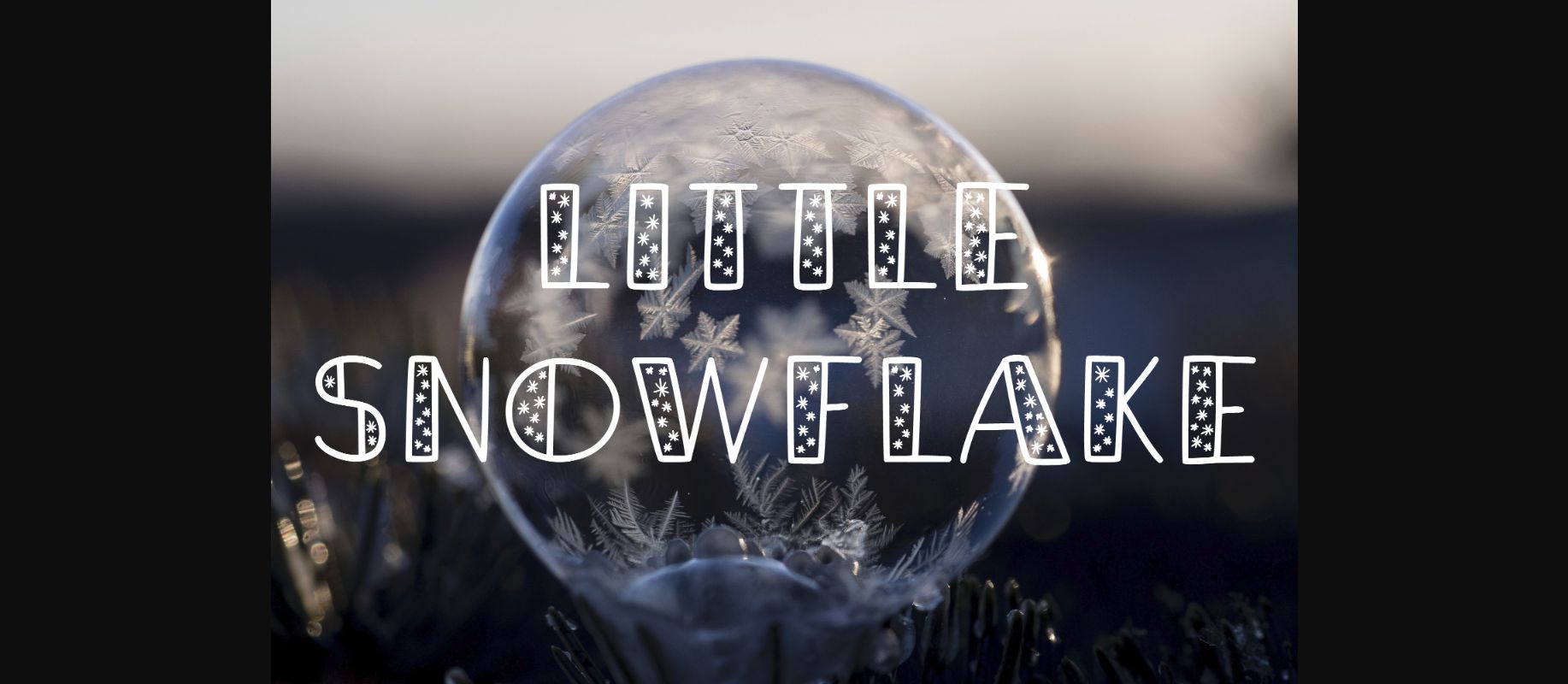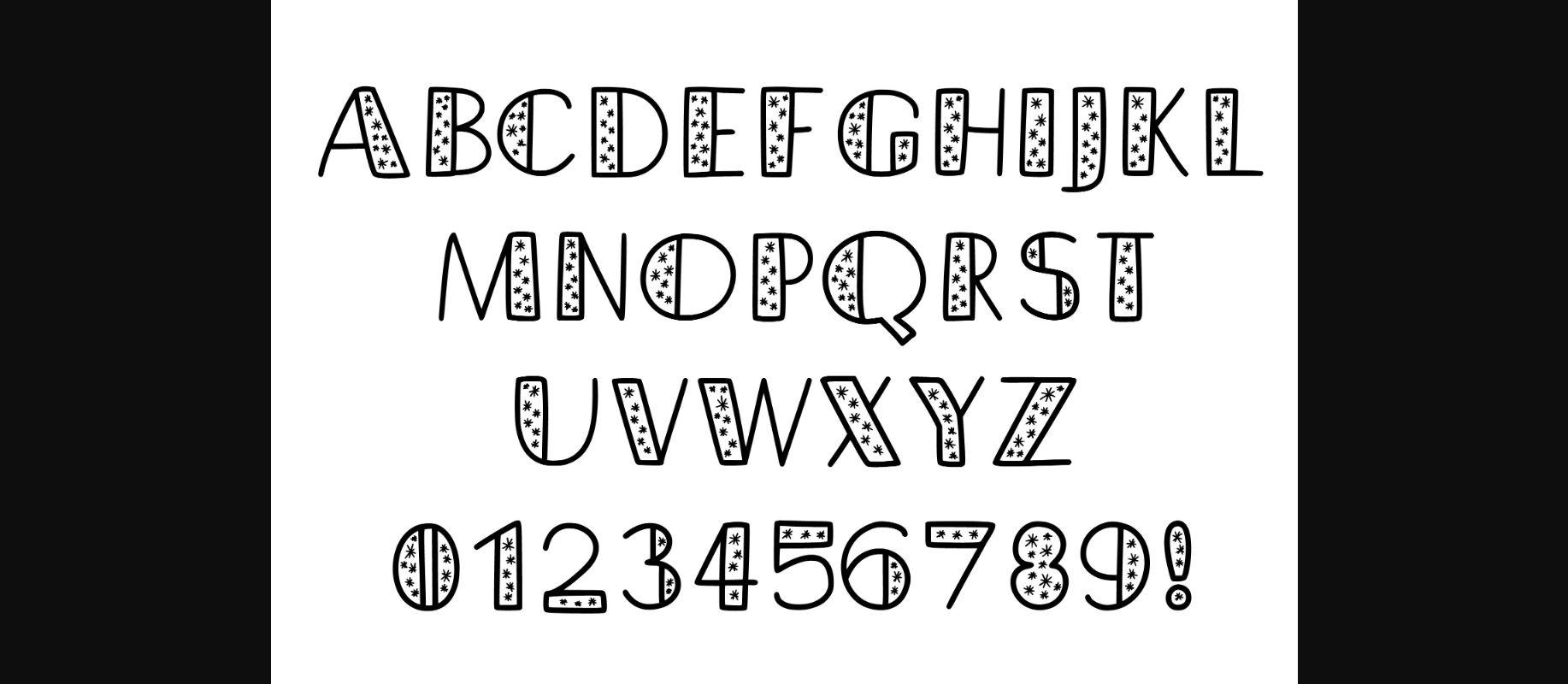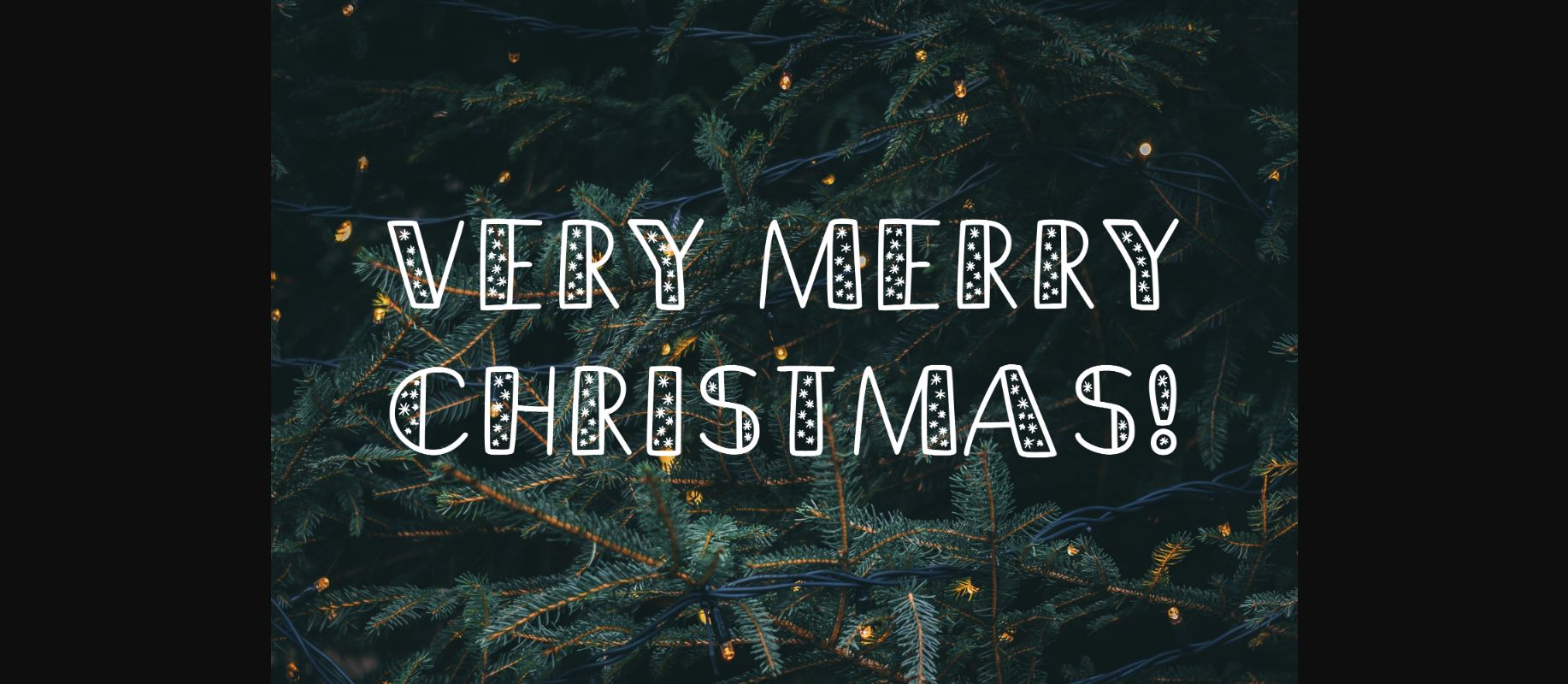
HomeDecorative FontsLittle Snowflake Font Decorative Fonts Little Snowflake Font FacebookXPinterestWhatsApp 1 of 5 ... Little Snowflake Font Poster 2... Little Snowflake Font Poster 3... Little Snowflake Font Poster 4... Little Snowflake Font Poster 5... About Little Snowflake Font Little Snowflake is a cute and lovely all-caps decorative font. With its adorable charm and wintery decorations, this font is perfect for all your festive designs. DOWNLOAD NOW People also explored Bolly Font Bellenia Love Font Pretty Sasa Font Backscatter Font Growthope Font Vintage Dingbat Font Blink Font Tartan Font Christmas Font 345 0 TagsLittle Snowflake Font Previous articleHny FontNext articleUnicorn Font LEAVE A REPLY Cancel reply Comment: Please enter your comment! Name:* Please enter your name here Email:* You have entered an incorrect email address! Please enter your email address here Website: Save my name, email, and website in this browser for the next time I comment. Personal Use Free Screengem Personal Use Free Read more about this font Knox Personal Use Free Read more about this font Hello, How Are You? Personal Use Free Read more about this font Letter Hanger Personal Use Free Read more about this font BLOG How to Install and Use Fonts on Windows, macOS, and Web Projects How to Install and Use Fonts on Windows, macOS, and Web Projects Fonts are a crucial part of design and branding. Whether you’re designing a... Modern Sans-Serif Fonts That Brands Love in 2025 Elegant Wedding Invitation Fonts – Handwritten & Script Fonts Free Fonts Risk: Why Free Fonts Can Be Dangerous for Designers